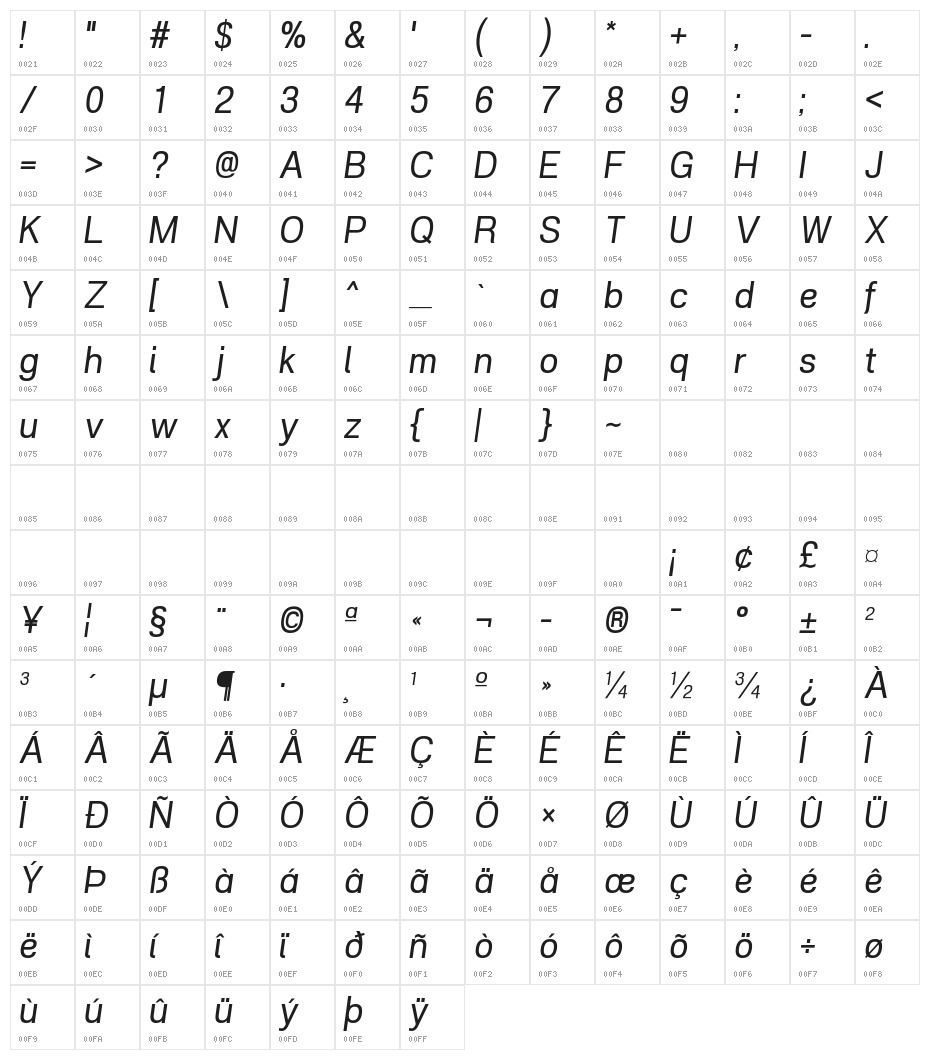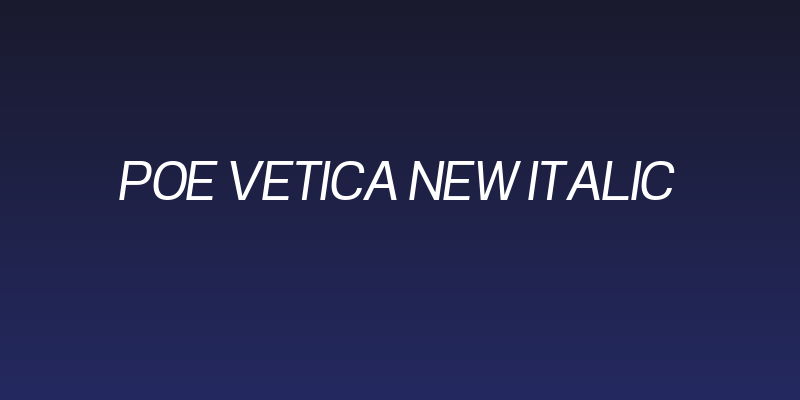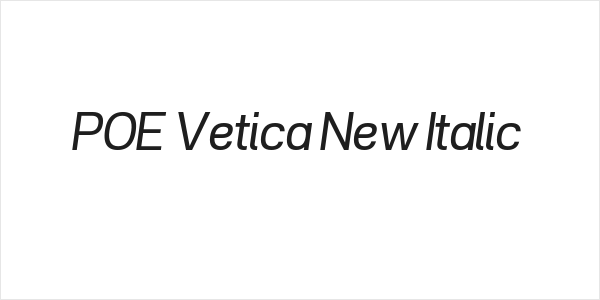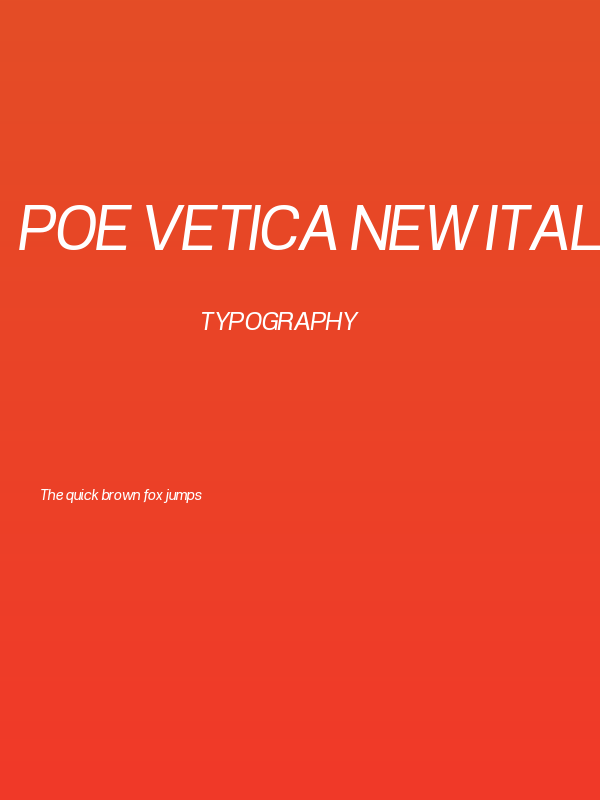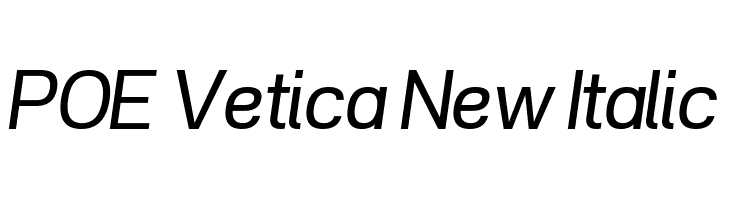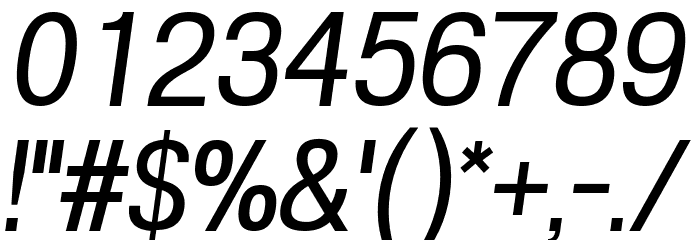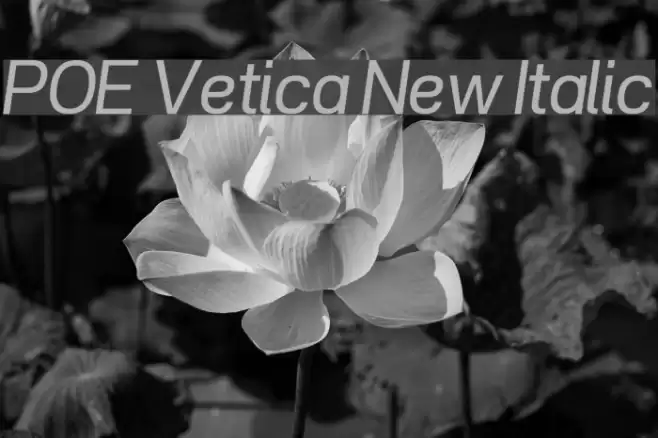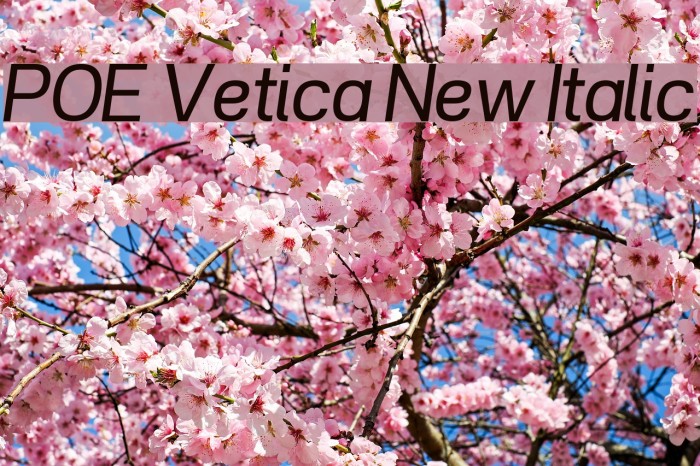
POE Vetica New Italic Font
POE Vetica New Italic Description
This font features a clean and modern sans-serif style with a slight italic slant, giving it a dynamic and forward-moving appearance. The characters are well-proportioned, with smooth curves and straight lines that create a harmonious balance. The uppercase letters are bold and assertive, while the lowercase letters maintain a friendly and approachable feel. The numerals are clear and easy to read, making them suitable for various applications. Special characters are included, ensuring versatility in design projects. The overall design is sleek and professional, suitable for both digital and print media.